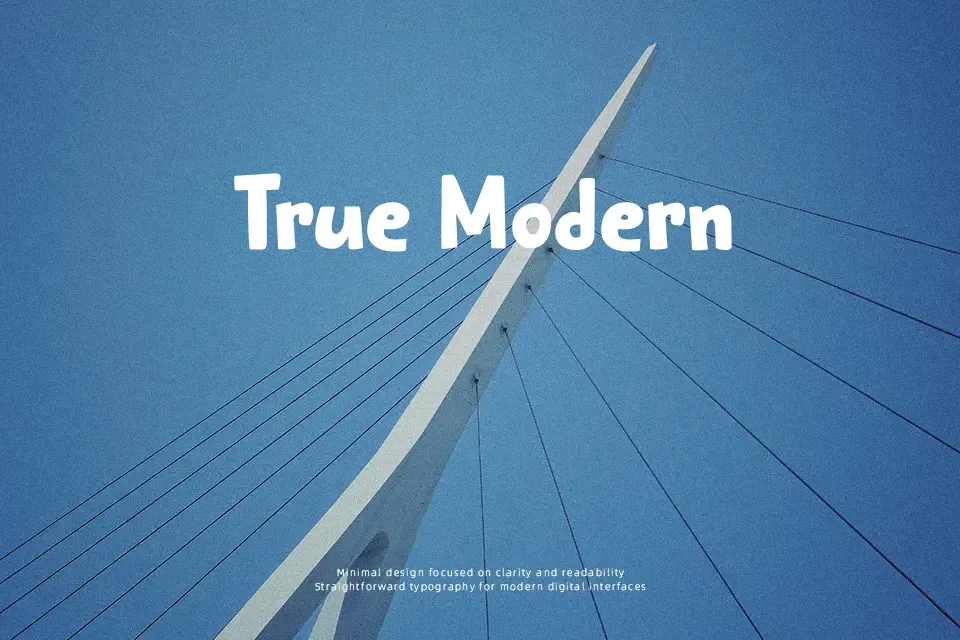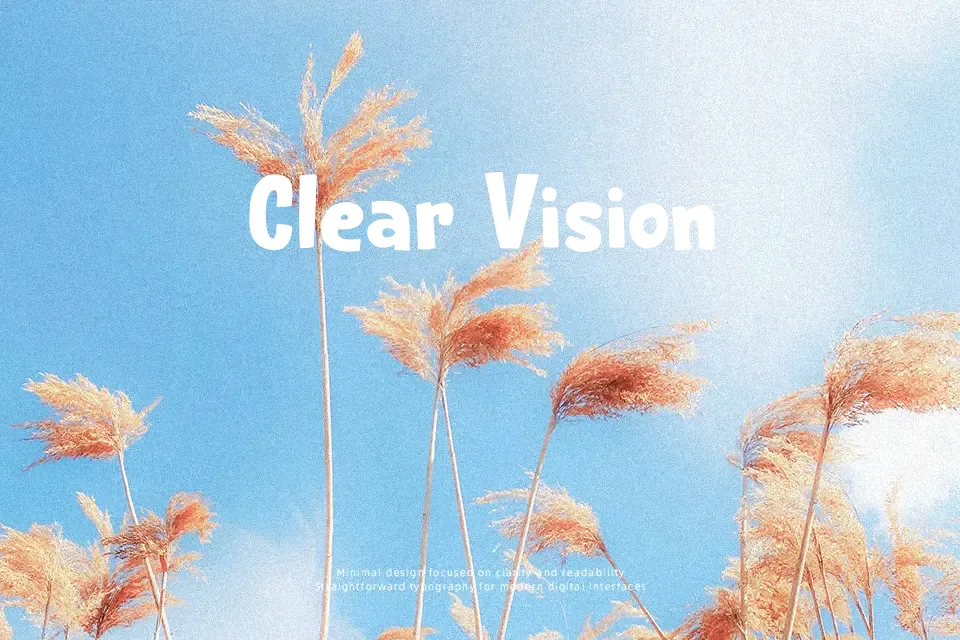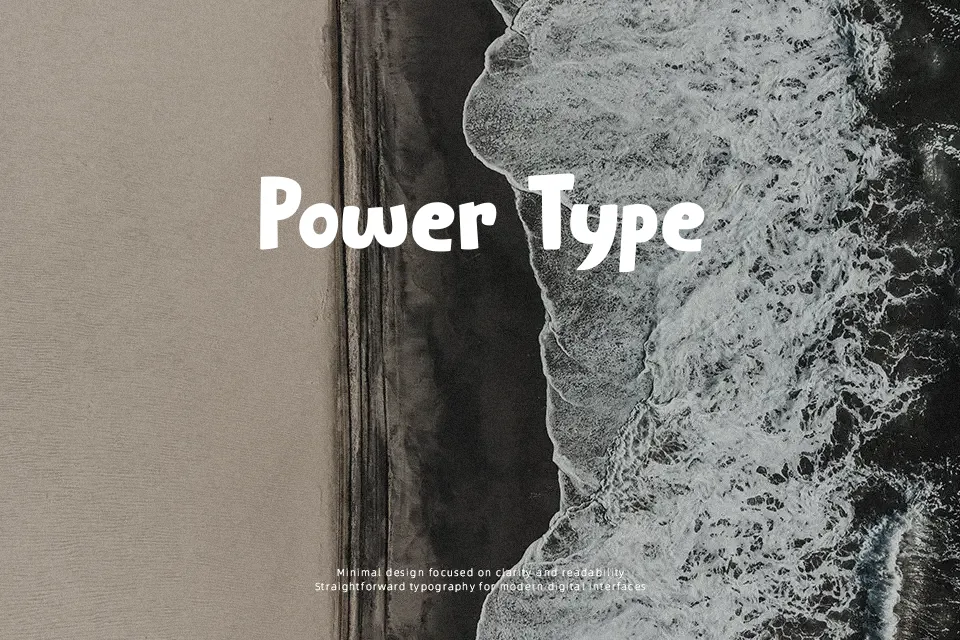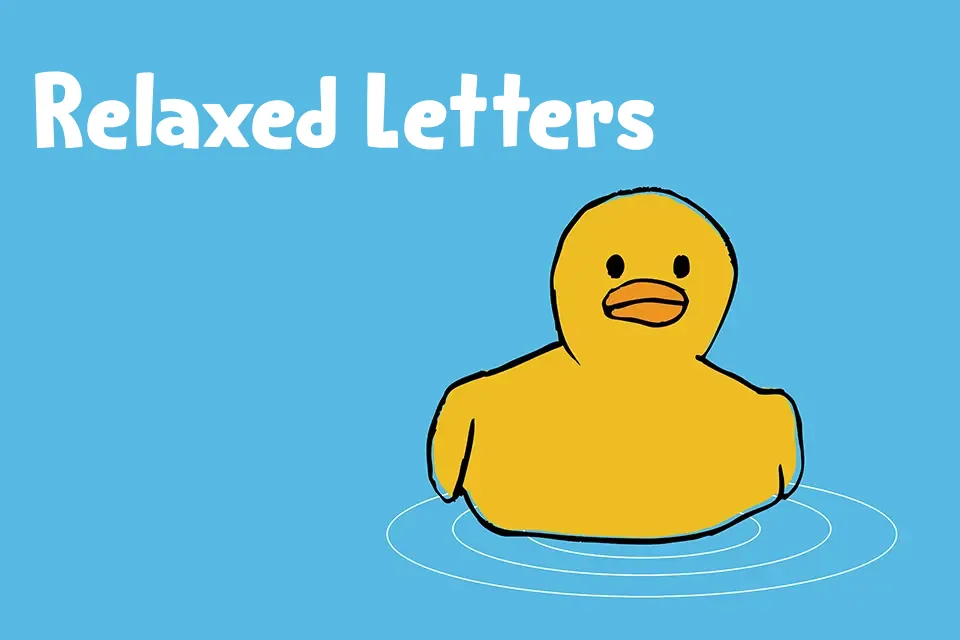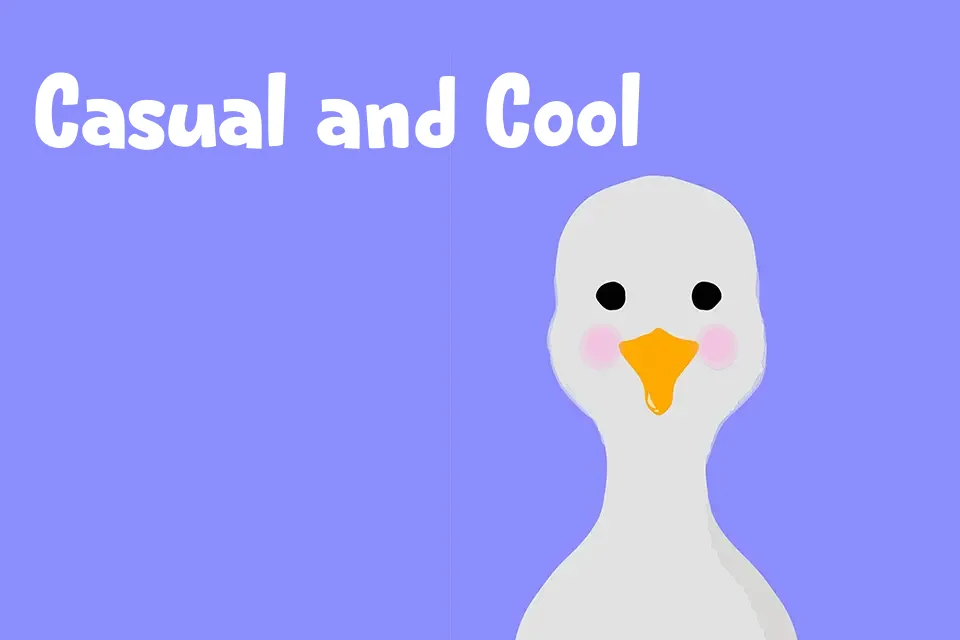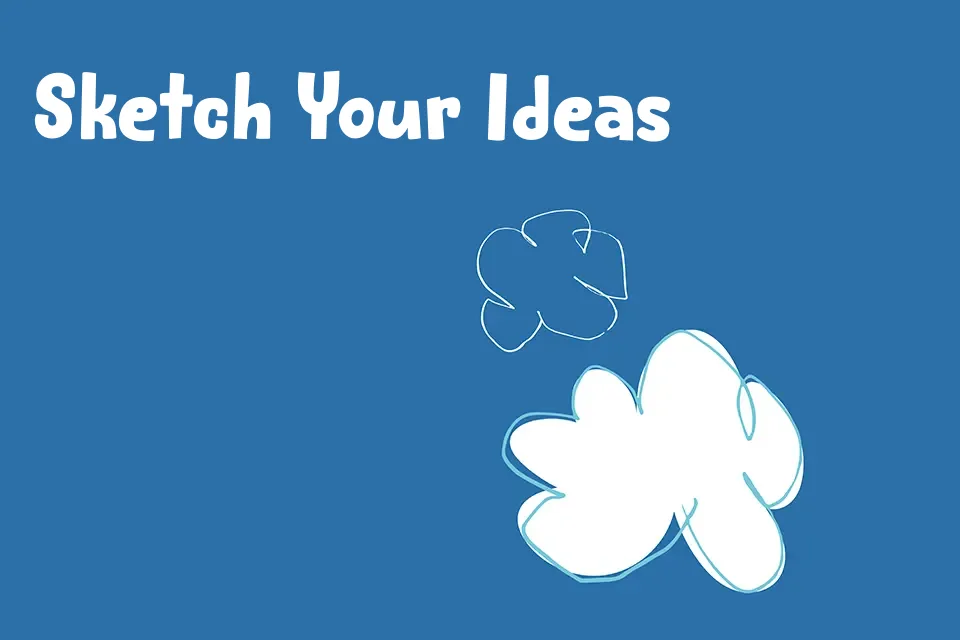
Bunny Daydream Font
Designed by Hanoded
Bunny Daydream features thick, rounded strokes with a slightly uneven, hand-drawn rhythm that reads as warm and approachable rather than polished. Its letters are compact and chunky, with generous curves and a subtle wobble that gives headlines a childlike, doodled quality. Cute swashes and full diacritic support add extra flair, so you can build playful wordmarks and multilingual titles without resorting to extra graphics. In practice, it shines on kids’ book covers, birthday party sets, classroom signage, toy packaging, and cheerful social tiles where personality matters more than strict readability. Because of its weight and informal shapes, it is less convincing in long paragraphs, formal editorial layouts, or serious corporate materials where a calmer serif or sans would stay out of the way.
kids’ book covers and titles
birthday invitations and party printables
classroom posters and learning materials
playful branding for toys or children’s products
long body text or dense paragraphs
formal corporate documents or reports
serious editorial or news layouts
minimal tech or finance branding
Perfect for branding, kids, and packaging, with a creative and cartoon style.